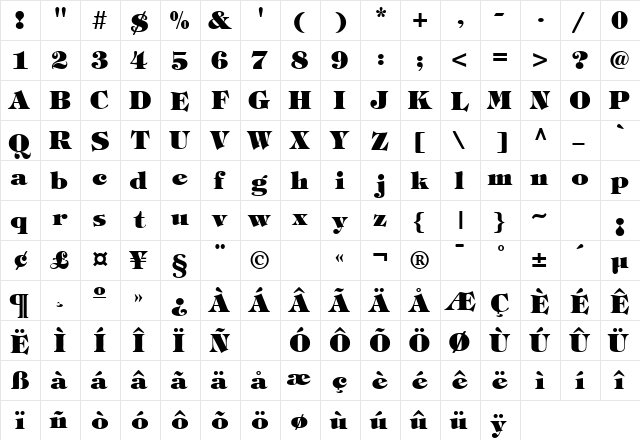
SophiBlaSSK Bold
Design Context for SophiBlaSSK Typeface
SophiBlaSSK offers clean, dependable letterforms without strong stylistic allegiance, making it a practical choice for designers who need flexibility. The heavy weight commands attention and anchors typographic hierarchies.
Pro Tip: Use SophiBlaSSK in both headline and body roles to test its range before committing to a single application.